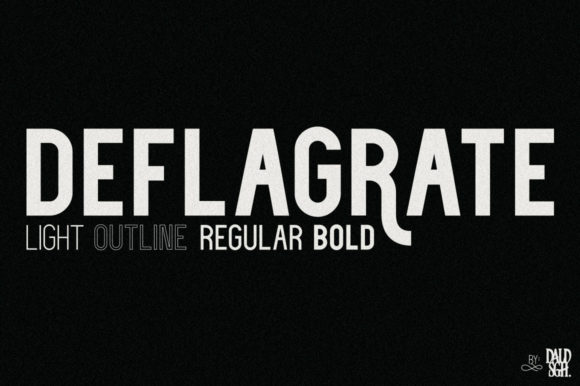
Introducing Deflagrate, the sans serif font that will ignite your creativity like never before!
Deflagrate is not just a font; it's a gateway to a world of design possibilities. Its clean lines and elegant curves dance across the page, creating a visual masterpiece that captivates the eye. With its striking swashes and contemporary flair, Deflagrate exudes an aura of sophistication that will elevate your designs to new heights.
Imagine your words leaping off the page with Deflagrate's graceful strokes. Every curve, every line is crafted to evoke emotion and convey your message with unparalleled clarity. Whether you're crafting stunning logos, captivating social media posts, or designing eye-catching websites, Deflagrate will empower you to make a lasting impression.
Indulge in the limitless possibilities that Deflagrate offers. Let your imagination soar as you explore its versatile nature. From minimalist masterpieces to bold and vibrant creations, Deflagrate adapts seamlessly to any design aesthetic, transforming your visions into reality.